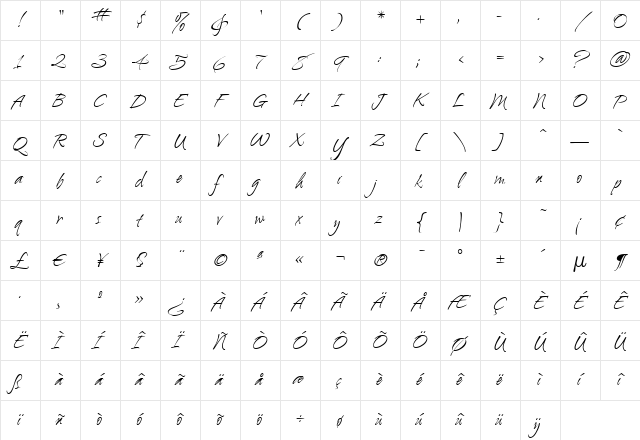
Ambiance BT Light
Ambiance BT Family
Design Context for Ambiance BT
Ambiance BT is a composed and adaptable typeface that performs quietly and consistently across a wide range of design contexts. Its slender proportions lend an understated elegance to any composition.